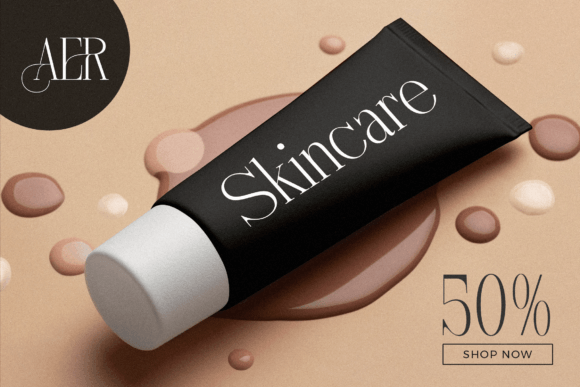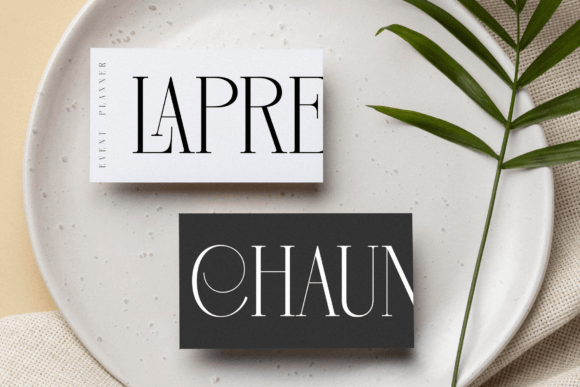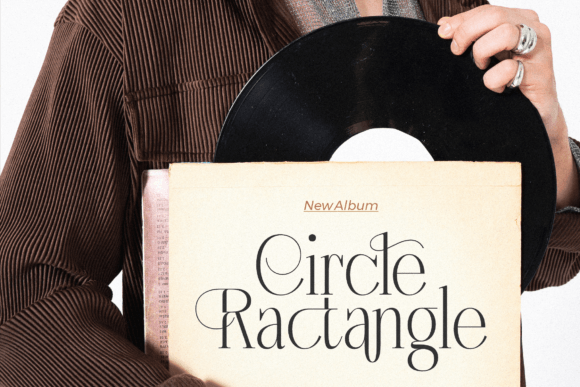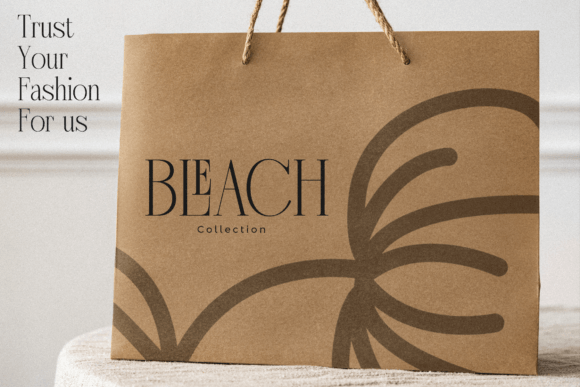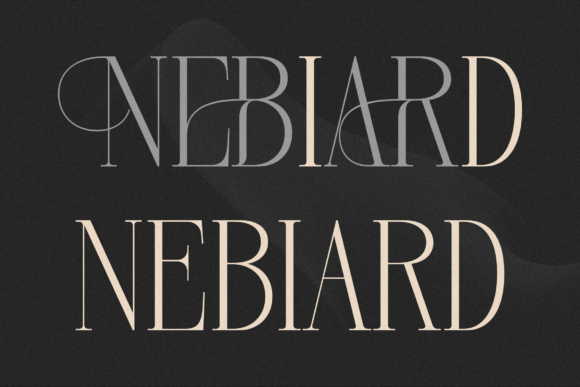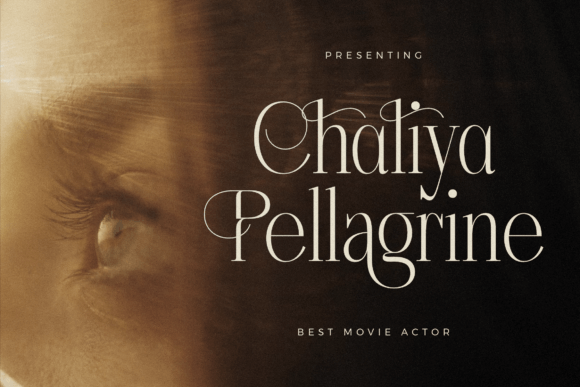
Introduction to Nebiard Font
Have you ever stared at a blank canvas, waiting for that perfect spark to ignite your creative project? For designers, that moment can be a thrilling experience, but it can also be daunting. As you search for the ideal font to bring your vision to life, you may find yourself scrolling through countless options, hoping to stumble upon something that truly stands out. That’s where the Nebiard Font comes in – a game-changing serif typeface that’s poised to elevate your designs to new heights.
Developed by the talented team at Storytype, the Nebiard Font is a masterclass in balance and elegance, boasting a unique blend of modern sophistication and classic charm. Whether you’re working on a high-end logo, a luxurious book cover, or a fashion brand’s identity, this versatile font is sure to make a lasting impression. With its high-quality design and transparent background, the Nebiard Font is an invaluable resource for designers seeking to create stunning visual experiences.
- Nebiard Font is a unique and versatile font that can be used for a wide range of creative projects, from logos to typography-based designs.
Honest Review: Nebiard Font
I recently had the chance to try out the Nebiard Font for my latest creative project, and I must say it’s been a game-changer. The font is a high-quality design resource that offers a unique and stylish look that’s perfect for a wide range of applications.
Here are some of the things that work well with the Nebiard Font:
- High-quality design: The Nebiard Font is incredibly detailed and polished, making it perfect for use in high-end designs.
- Unique style: The font has a distinctive look that’s sure to stand out in any design.
However, there are a few limitations to be aware of:
- Limited character set: The Nebiard Font only includes a limited set of characters, which may not be suitable for use in languages with complex character sets.
- No support for bold or italic styles: The font only comes in a regular style, which may limit its use in certain designs.
Overall, I’m really impressed with the Nebiard Font. It’s a high-quality design resource that’s perfect for a wide range of creative projects. If you’re looking for a unique and stylish font, I would definitely recommend giving it a try.
Nebiard Font is ideal for creative projects that require a high-quality, free design resource. It is commonly used for presentations, posters, and infographics that require a clean and modern look. With its transparent background, Nebiard Font is also perfect for creating designs that require a subtle and elegant appearance.